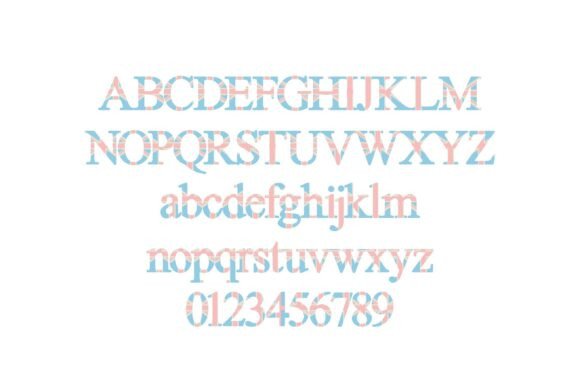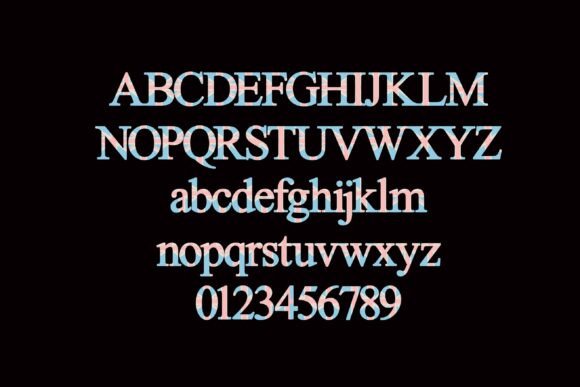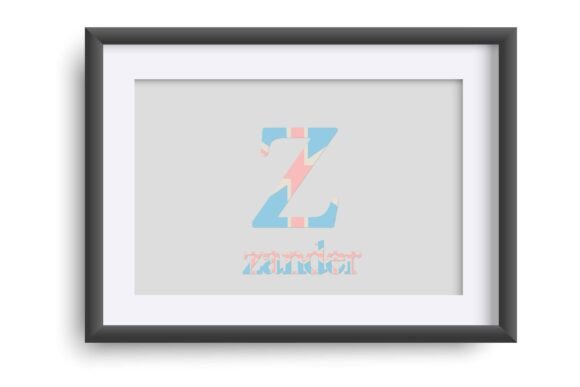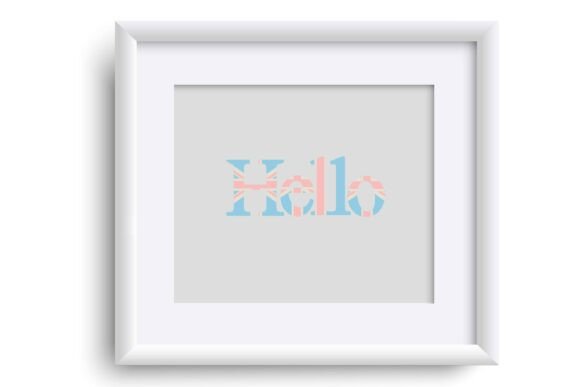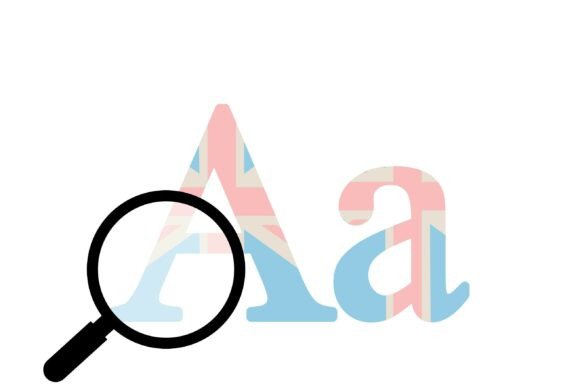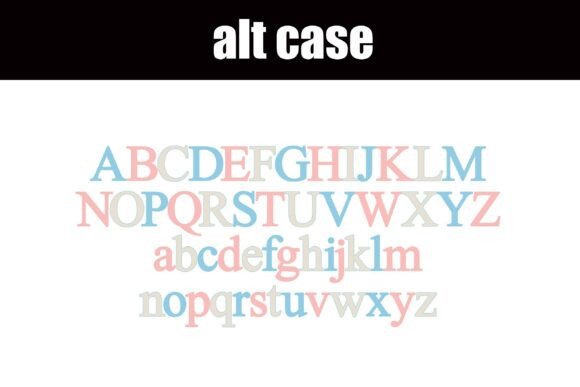
Add a Touch of Regal Charm with Baby Brit Font
Are you looking for a unique and elegant font to add a touch of British heritage to your designs? Look no further than Baby Brit, a full-color SVG font that brings a soft, nursery-friendly twist to traditional regal charm. This beautiful serif typeface is perfect for designers and crafters who want to create stunning layouts that celebrate the iconic Union Jack flag pattern in a gentle and whimsical way.
The Inspiration Behind Baby Brit
Baby Brit is a font that celebrates British heritage with a modern and playful twist. The iconic Union Jack flag pattern is embedded within every character, reimagined in a gentle palette of muted rose, sky blue, and cream. This soft color scheme gives the font a nursery-friendly feel, making it perfect for London-themed nursery decor, royal-inspired baby announcements, and boutique children’s apparel branding.
Key Features of Baby Brit Font
- Full-color SVG font: Baby Brit is a full-color SVG font that allows for crisp and clear rendering at any size.
- Elegant serif typeface: The font features a classic serif design with a touch of elegance and sophistication.
- Iconic Union Jack flag pattern: Every character features the iconic Union Jack flag pattern, adding a touch of British heritage to your designs.
- Soft, nursery-friendly color palette: The font features a gentle palette of muted rose, sky blue, and cream, making it perfect for nursery decor and children’s branding.
Use Cases for Baby Brit Font
Baby Brit is a versatile font that can be used in a variety of design projects, including:
- London-themed nursery decor: Add a touch of regal charm to nursery walls, bedding, and curtains with Baby Brit.
- Royal-inspired baby announcements: Create stunning baby announcements that celebrate the new arrival with a touch of British heritage.
- Boutique children’s apparel branding: Give your children’s clothing brand a touch of elegance and sophistication with Baby Brit.
- Patriotic celebratory headers: Use Baby Brit to create stunning headers for patriotic celebrations, such as 4th of July or Canada Day.
Why Choose Baby Brit Font?
Baby Brit is an extraordinary choice for designers and crafters who want to add a touch of regal charm to their layouts. Here are just a few reasons why:
- Unique and eye-catching design: Baby Brit features a unique and eye-catching design that will set your projects apart from the rest.
- Timeless prestige and whimsical heritage: The font delivers a sense of timeless prestige and whimsical heritage to your visual storytelling.
- Easy to use: Baby Brit is a full-color SVG font that is easy to use and scalable to any size.
In conclusion, Baby Brit is a beautiful and elegant font that celebrates British heritage with a soft, nursery-friendly twist. With its iconic Union Jack flag pattern, gentle color palette, and classic serif design, Baby Brit is perfect for designers and crafters who want to add a touch of regal charm to their layouts. Whether you’re creating London-themed nursery decor, royal-inspired baby announcements, or boutique children’s apparel branding, Baby Brit is an extraordinary choice that delivers a sense of timeless prestige and whimsical heritage to your visual storytelling.